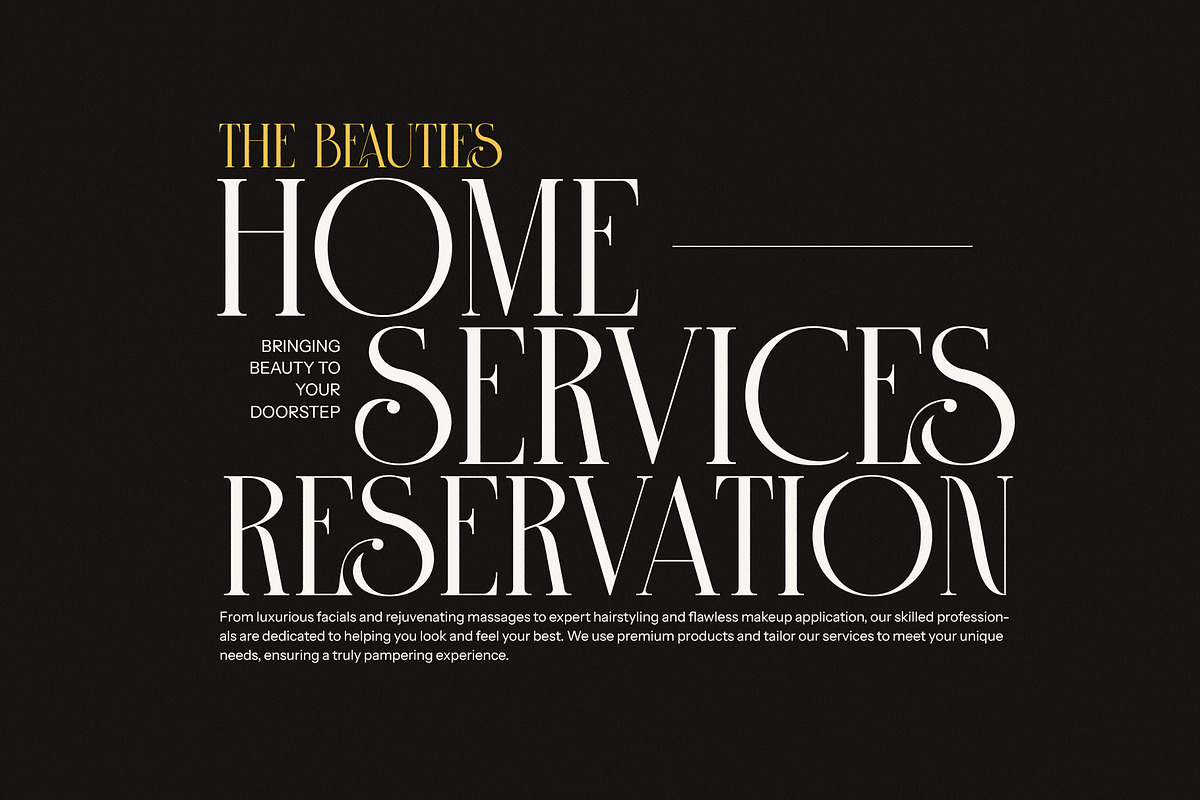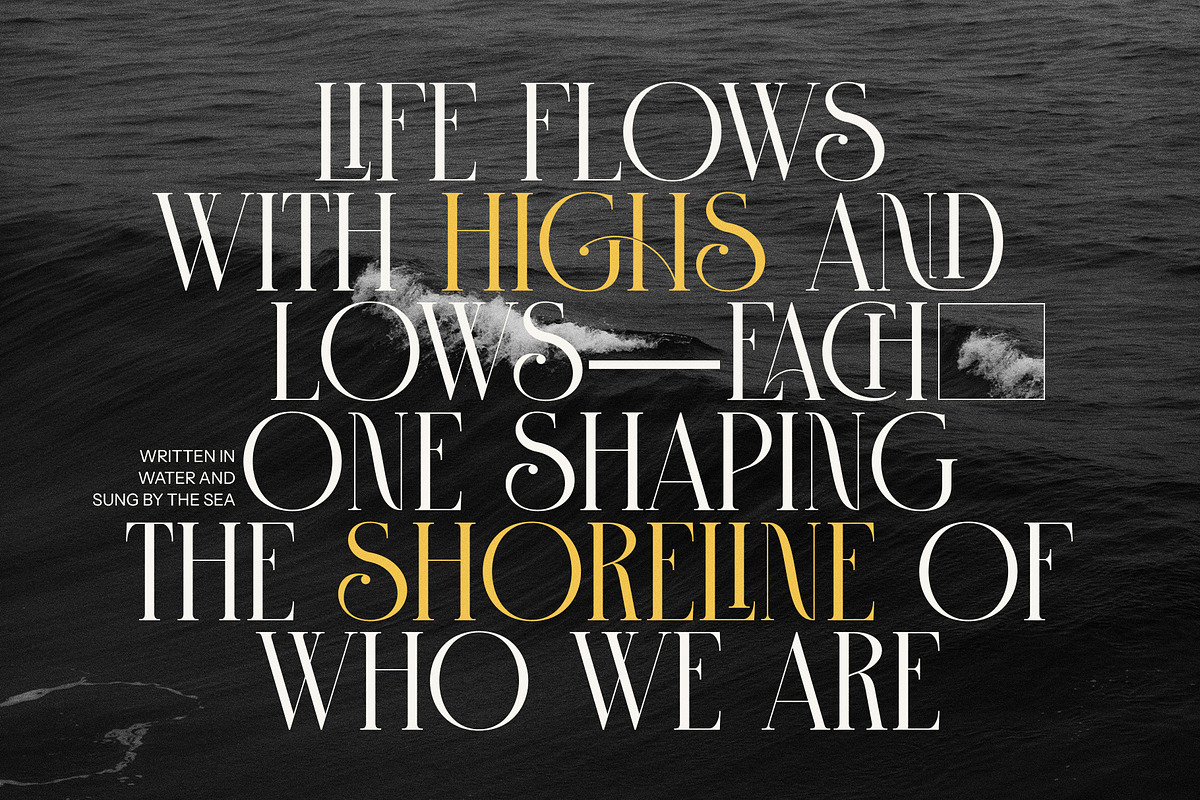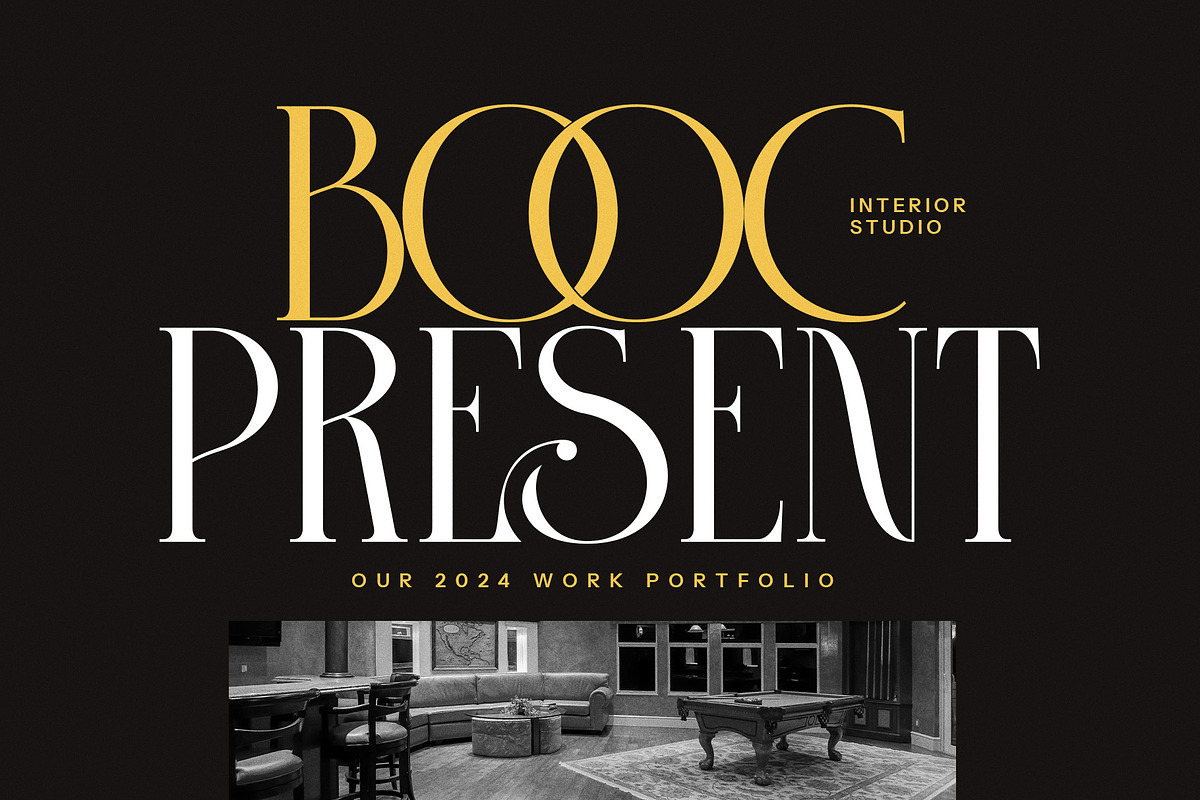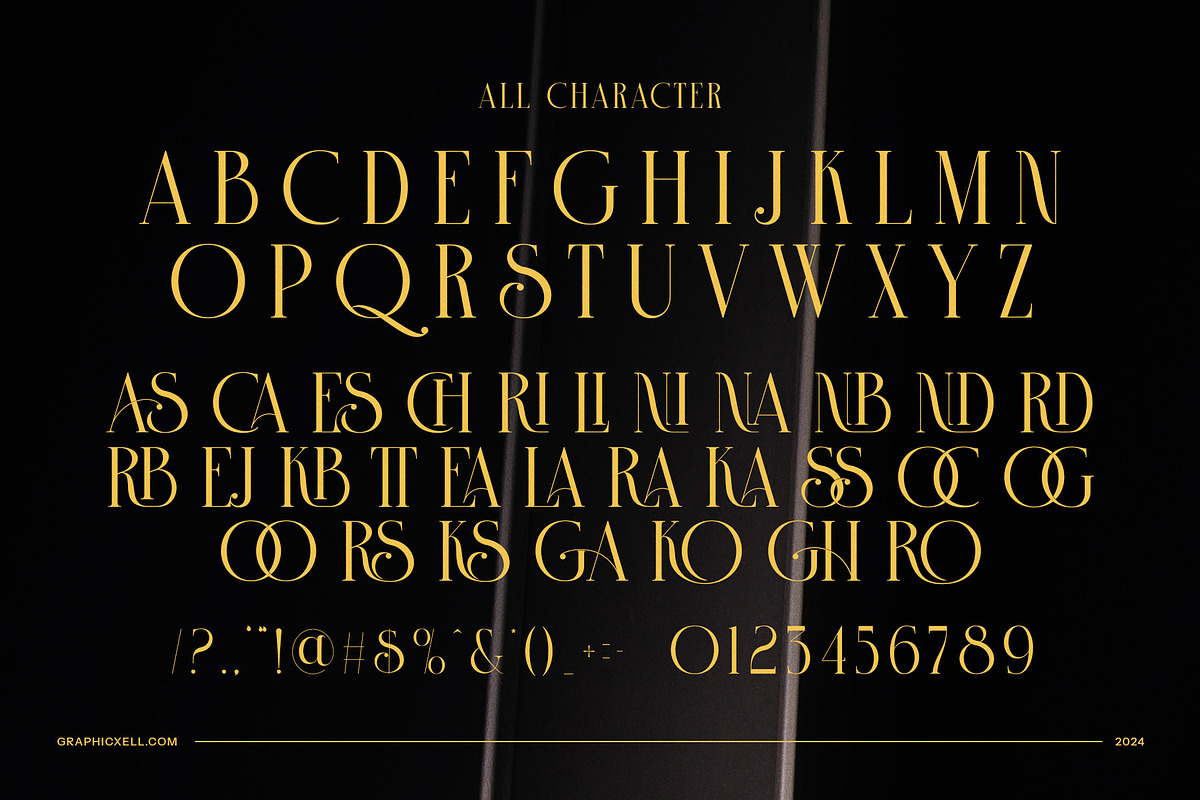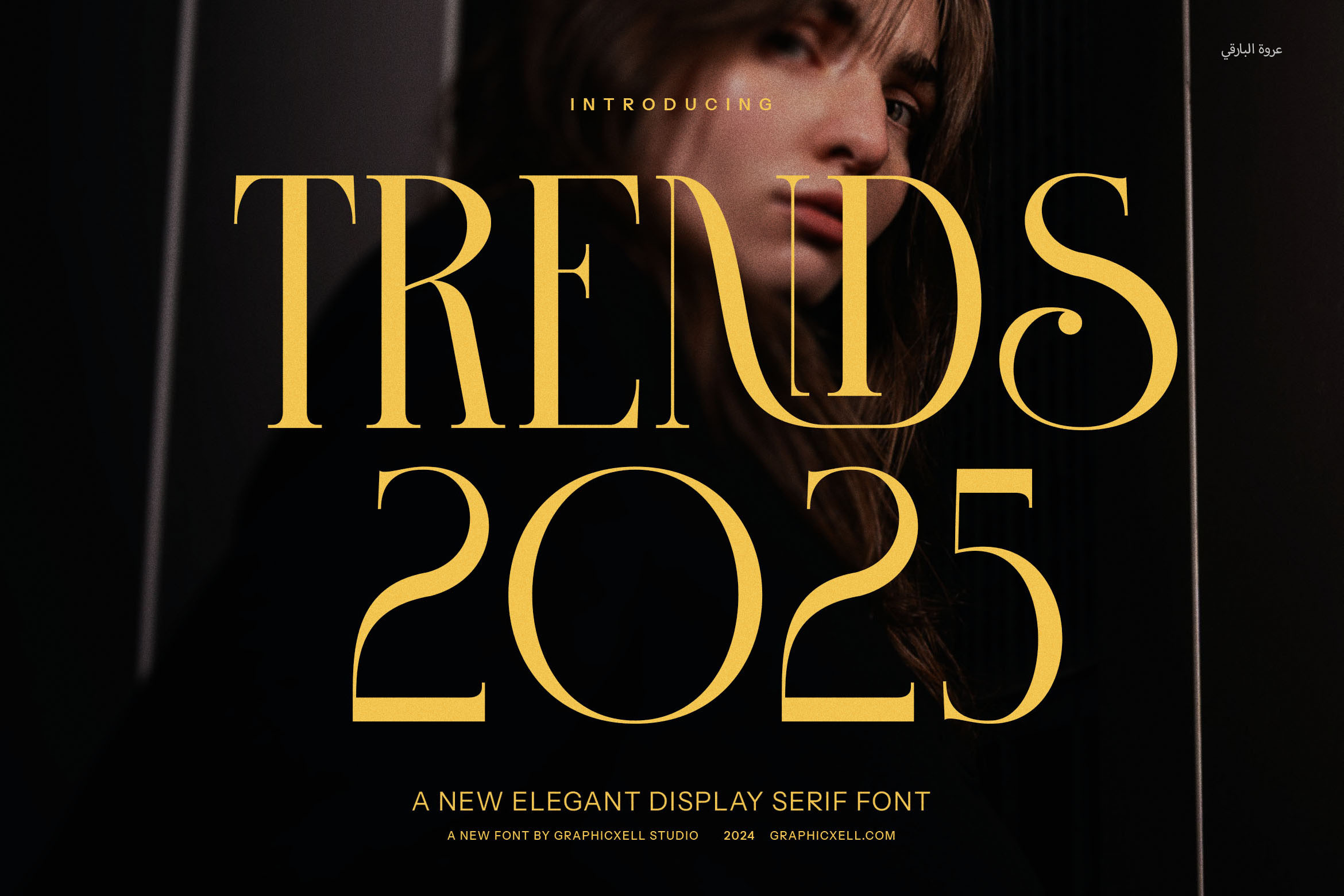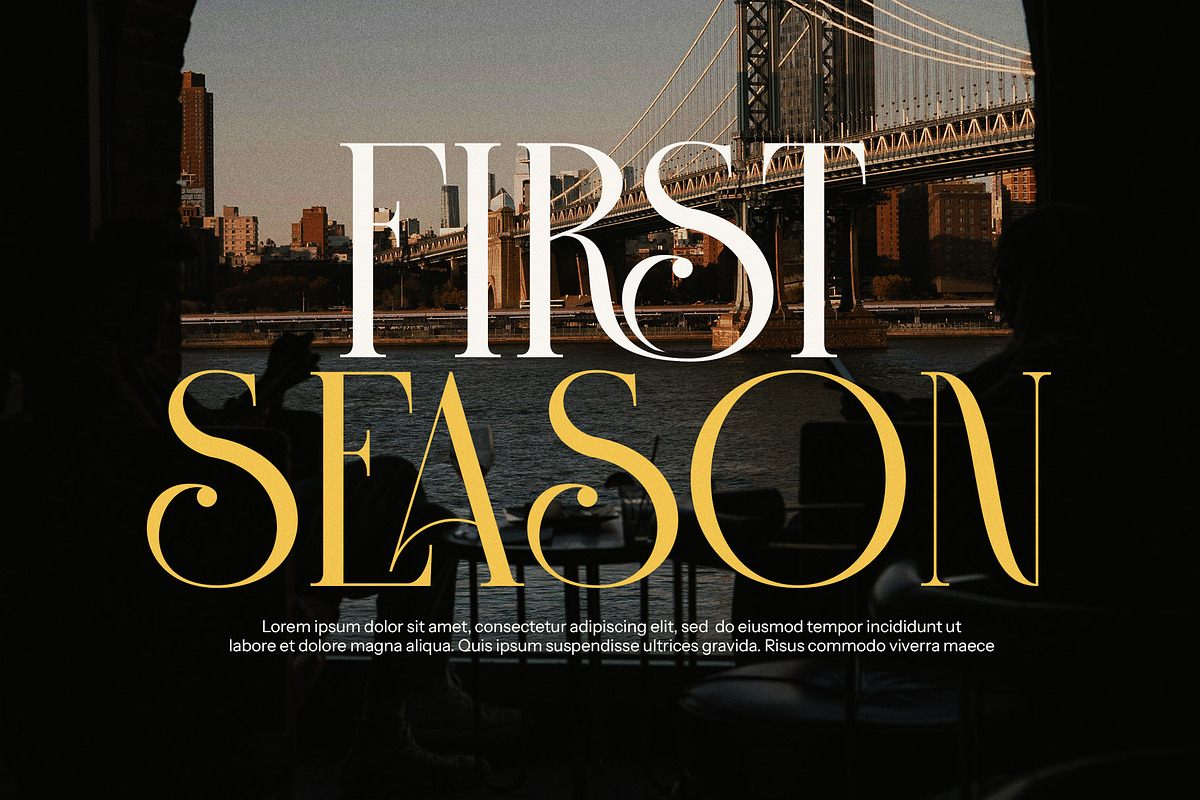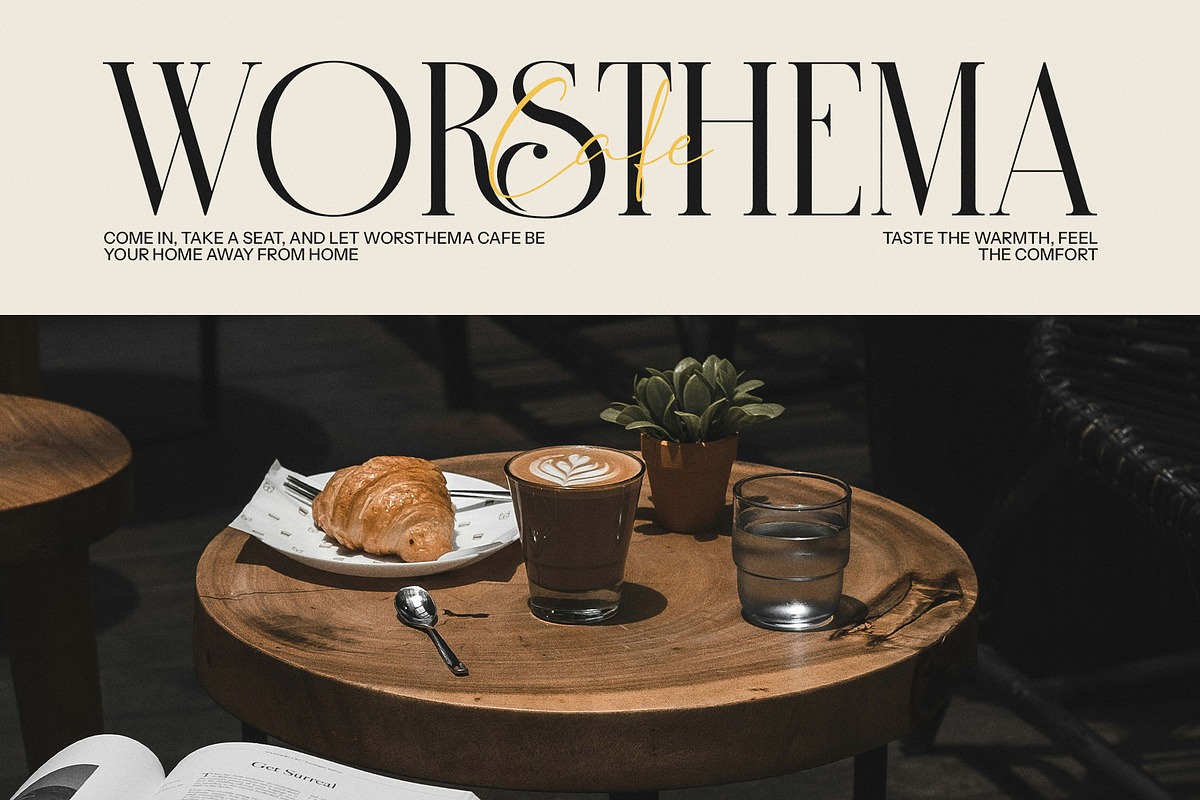
Trends 2025 Serif Font
Introducing Trends 2025 Serif Font, a sophisticated typeface that effortlessly merges modern elegance with timeless charm. Crafted with precision, this font features beautifully balanced serifs, graceful curves, and meticulously designed ligatures, making it a standout choice for those seeking to elevate their designs.
The unique blend of calligraphic alternatives and stylish details gives Trends 2025 a versatile edge, perfect for a wide range of creative applications. Whether you're designing luxury branding, curating captivating magazine layouts, or crafting memorable logos, this font exudes professionalism and creativity. Its clean yet artistic forms ensure readability while adding a distinctive flair to any project.
Ideal for boutique branding, high-end packaging, fashion-forward websites, or elegant advertising campaigns, Trends 2025 adapts seamlessly to both print and digital mediums. Its refined aesthetics also make it a favorite for food styling, home décor branding, and editorial design, allowing your projects to stand out with sophistication and charm.
With a focus on versatility, this font includes a variety of ligatures and alternate characters, offering endless opportunities for customization. From minimalist projects to intricate compositions, Trends 2025 Serif Font empowers designers to push creative boundaries and leave a lasting impression.
Redefine elegance with Trends 2025 Serif Font—the perfect companion for projects that demand both beauty and impact. Let your designs shine with this contemporary serif masterpiece that embodies style, refinement, and innovation.